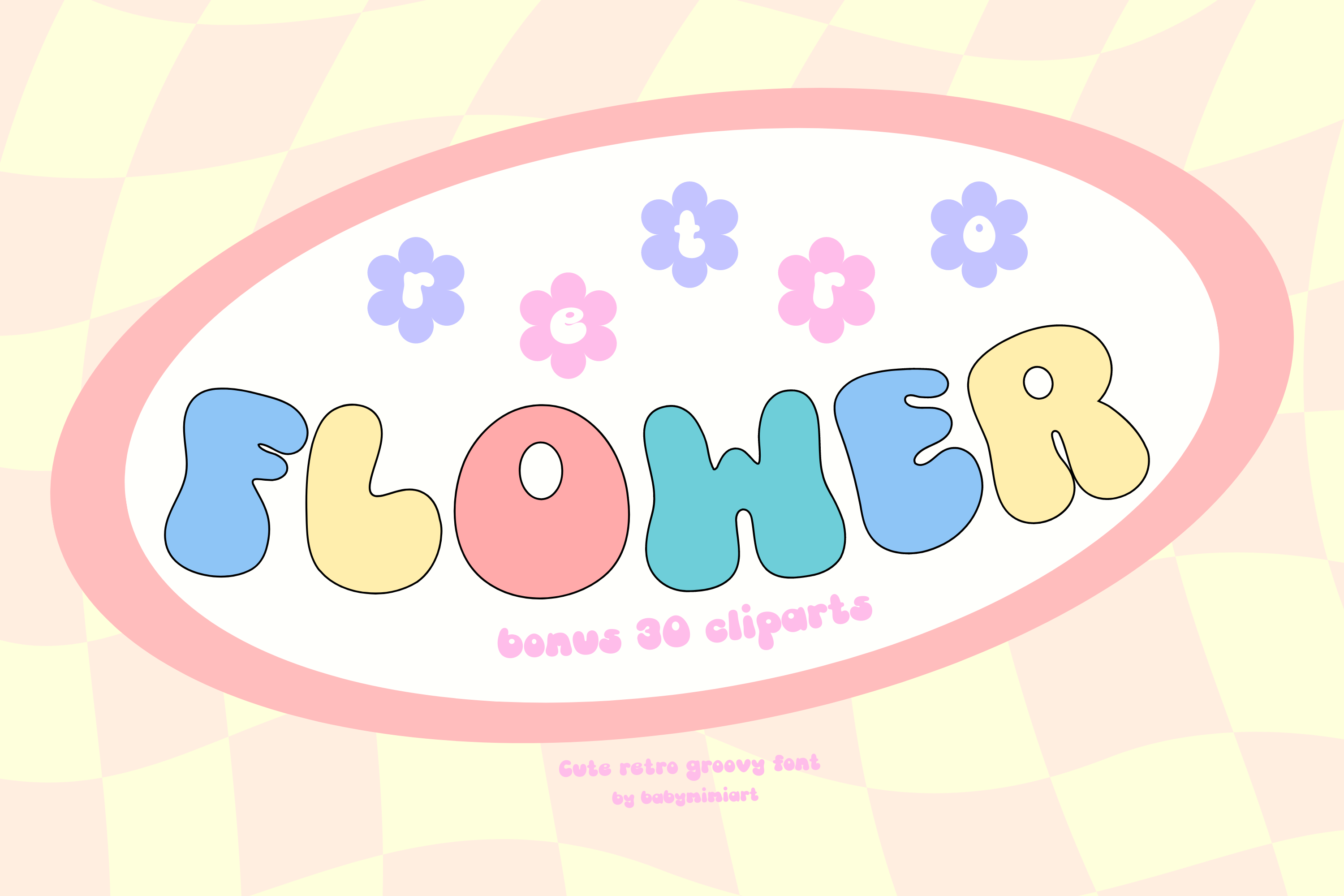
Retro Flower Display Font + Bonus
Flower is a retro display font that adds a sweet and retro touch to your designs with retro floral elements. This font is perfect for a variety of design projects, including logos, quotes, greeting cards, posters, t-shirts, and much more. As a special bonus, you’ll receive 30 retro flowers PNG and SVG files that can be used for decorating.